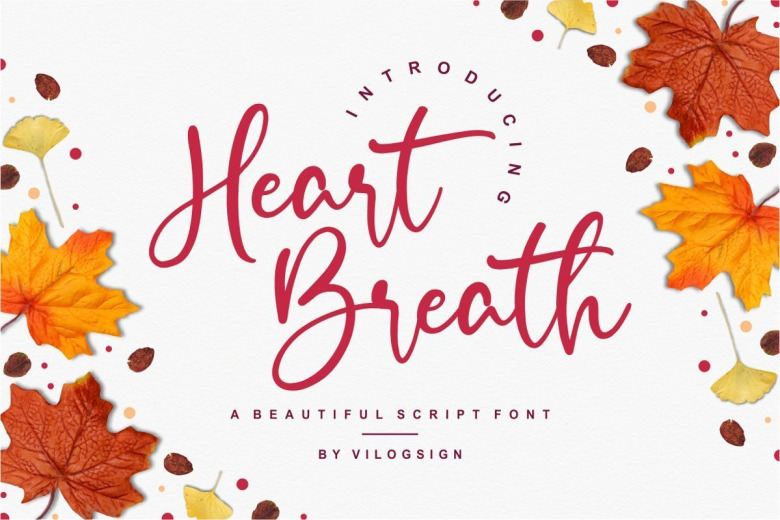
Heart Breath Font
Heart Breath Script Font is a beautiful and cursive calligraphy handwritten font. Can make it easier to convey the message in your design and create a unique impression of bold and aesthetic looks. Joyful and warm, this font will be the ideal choice for both festive and casual designs. This font is very good with multilingual support to complete your need.
This font has many stylistic alternates, ligatures, beginning and ending so you can play around with them using open type features and creates lettering with natural touch. Very suitable to make a branding, t-shirt, magazine, fashion, quotes, logo, packaging, and other.